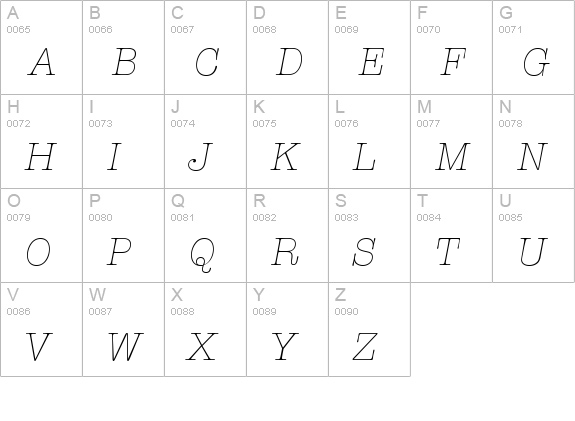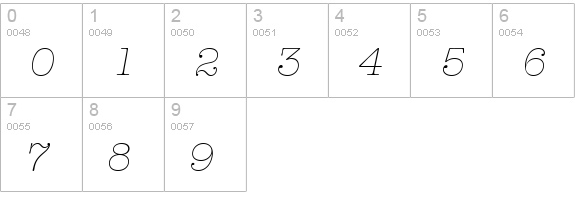
AmTypEFLigIta Font Details
AmTypEFLigIta is a modern and sleek display font that exudes elegance and sophistication. Its unique letterforms and stylish curves make it perfect for adding a touch of class to any design project. Whether you're creating a logo, poster, or branding materials, AmTypEFLigIta will make your text stand out with its distinctive flair. This versatile font is ideal for a wide range of applications, from fashion and beauty to luxury and lifestyle brands. Its clean lines and subtle details give it a timeless and sophisticated look that will elevate your design to the next level. Best of all, AmTypEFLigIta is completely free to download at FontsMarket.com. So you can add this gorgeous font to your collection without breaking the bank. Don't miss out on the opportunity to enhance your designs with this stunning typeface. Download AmTypEFLigIta today and take your projects to new heights of style and sophistication!